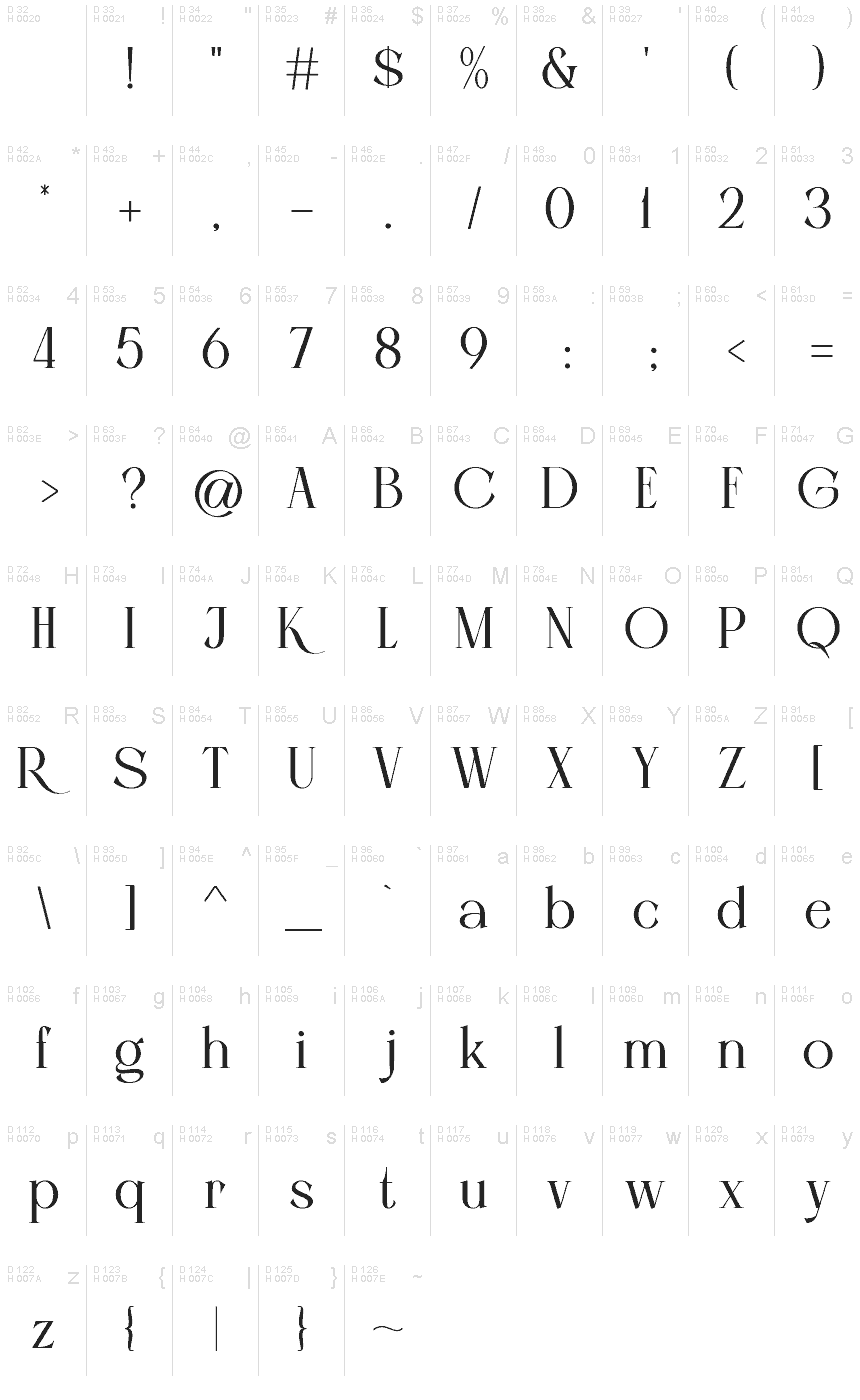
Monrovia-ModernSerifFont Reg
Monrovia Modern Serif font by Get Studio is a sophisticated typeface that beautifully blends modern serif style with classic influences. Elegant and refined, this free serif font is designed to add a touch of distinction to every word it adorns and offers versatile applications in a range of typographic projects.
Designed for luxury and high-end branding, Monrovia is optimal for logos, stationery, magazine headers, blog headers, tattoo design, typography quotes, apparel designs, product packaging design (perfumes/essential oils), invitation cards (weddings/birthdays/eventts), special event décor and much more!